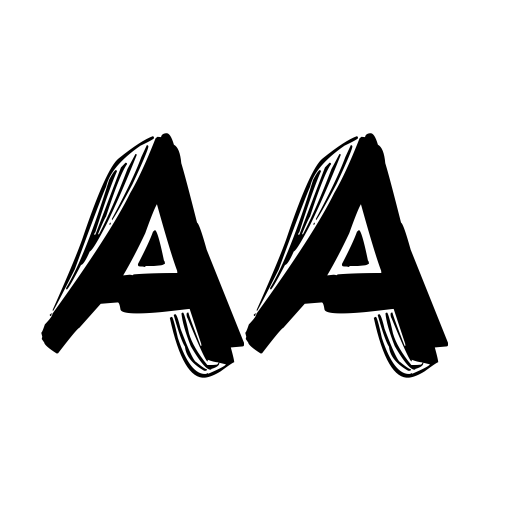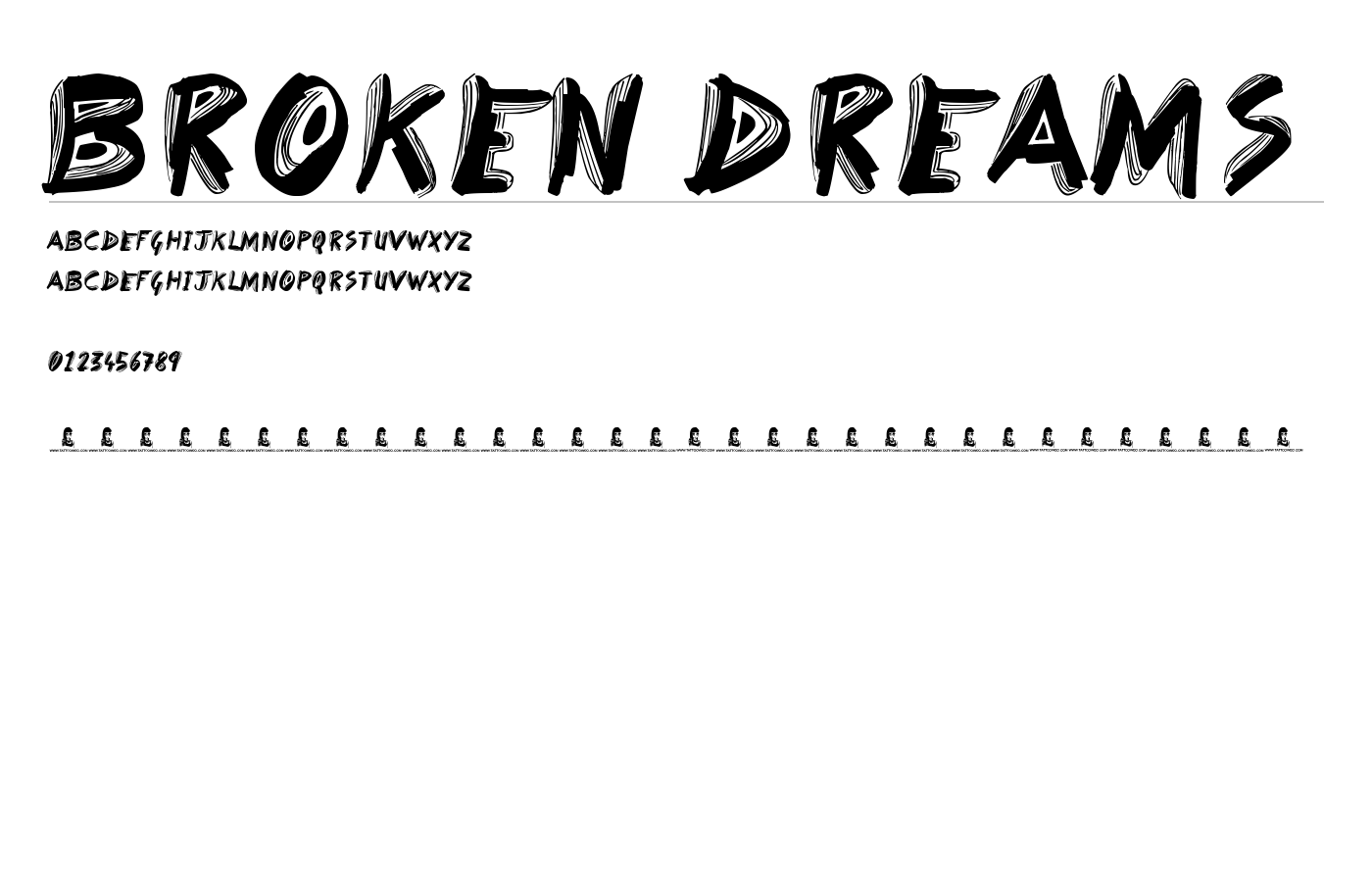
Broken Dreams is a bold, hand-drawn display font with a rough, textured style that gives it a raw and edgy personality. Its irregular strokes and playful shapes make it perfect for artistic, informal, or alternative branding, posters, and creative projects that need an expressive, attention-grabbing look. This font works best in large sizes where its unique, gritty details can stand out and make a strong visual impact.
Broken Dreams Font
About Broken Dreams Font
| Font family | Broken Dreams Font |
| Designer | Jonathan S. Harris |